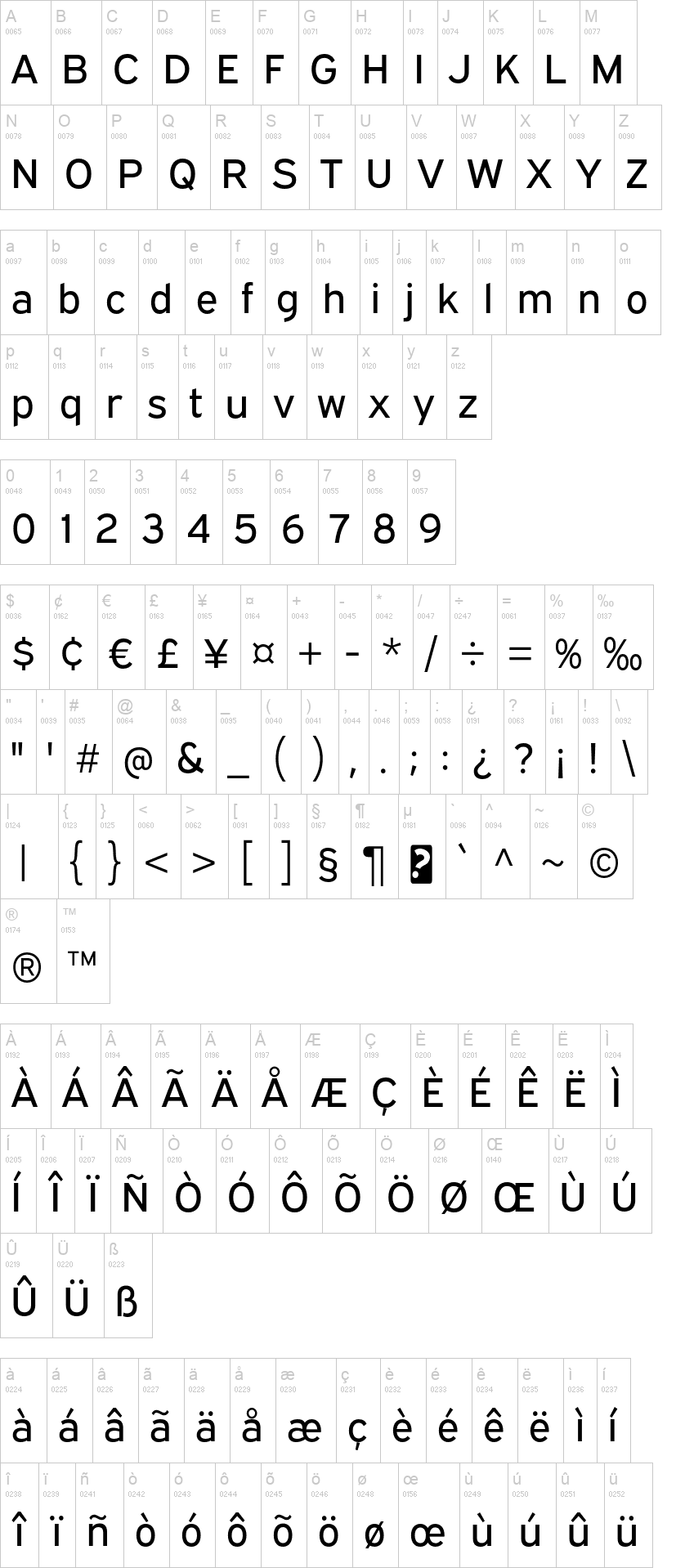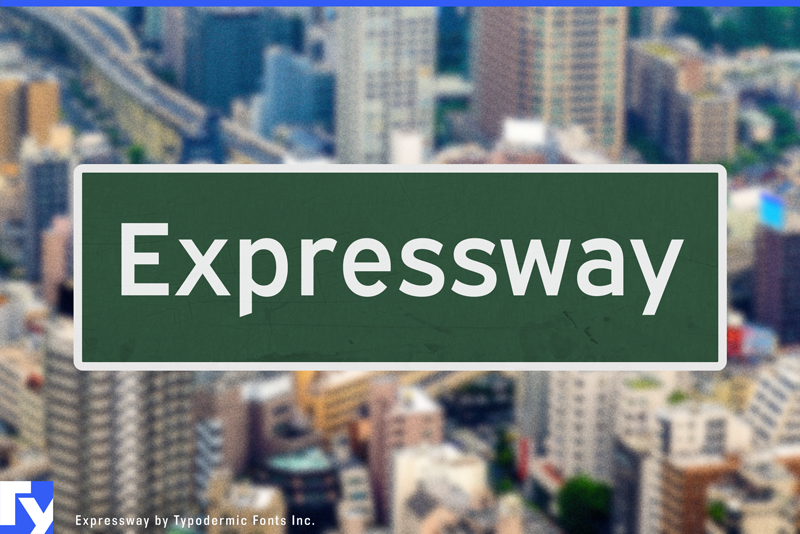
Note of the authorExpressway is a sans-serif typeface inspired by the U.S. Department of Transportations FHWA Series of Standard Alphabets, also known as Highway Gothic. It has been the most commonly used typeface on road signs in the United States, Canada, Mexico, Australia, Turkey, Spain, Venezuela, the Netherlands, Brazil, Argentina, Taiwan, Malaysia, Indonesia, India, Mongolia, and New Zealand since the mid-twentieth century. Instead of strictly adhering to government specifications, Expressway is a more practical design that preserves the original road sign feel. For a total of twenty-eight styles, the family includes seven weights, two widths, and italics. Lowercase (old-style) numerals as well as monospaced (tabular) numerals are easily accessible in OpenType-capable programs. Currency, mathematical, and fraction symbols are all monospaced, making it simple to create price lists and other tabular numeric data. The basic technical design of Expressway may be rooted in the past, but its warm, industrial style is eternal. Most Latin-based European, Vietnamese, Greek, and most Cyrillic-based writing systems are supported, including the following languages. Afaan Oromo, Afar, Afrikaans, Albanian, Alsatian, Aromanian, Aymara, Azerbaijani, Bashkir, Bashkir (Latin), Basque, Belarusian, Belarusian (Latin), Bemba, Bikol, Bosnian, Breton, Bulgarian, Buryat, Cape Verdean, Creole, Catalan, Cebuano, Chamorro, Chavacano, Chichewa, Crimean Tatar (Latin), Croatian, Czech, Danish, Dawan, Dholuo, Dungan, Dutch, English, Estonian, Faroese, Fijian, Filipino, Finnish, French, Frisian, Friulian, Gagauz (Latin), Galician, Ganda, Genoese, German, Gikuyu, Greenlandic, Guadeloupean Creole, Haitian Creole, Hawaiian, Hiligaynon, Hungarian, Icelandic, Igbo, Ilocano, Indonesian, Irish, Italian, Jamaican, Kaingang, Khalkha, Kalmyk, Kanuri, Kaqchikel, Karakalpak (Latin), Kashubian, Kazakh, Kikongo, Kinyarwanda, Kirundi, Komi-Permyak, Kurdish, Kurdish (Latin), Kyrgyz, Latvian, Lithuanian, Lombard, Low Saxon, Luxembourgish, Maasai, Macedonian, Makhuwa, Malay, Maltese, Māori, Moldovan, Montenegrin, Nahuatl, Ndebele, Neapolitan, Norwegian, Novial, Occitan, Ossetian (Latin), Papiamento, Piedmontese, Polish, Portuguese, Quechua, Rarotongan, Romanian, Romansh, Russian, Rusyn, Sami, Sango, Saramaccan, Sardinian, Scottish Gaelic, Serbian, Serbian (Latin), Shona, Sicilian, Silesian, Slovak, Slovenian, Somali, Sorbian, Sotho, Spanish, Swahili, Swazi, Swedish, Tagalog, Tahitian, Tajik, Tatar, Tetum, Tongan, Tshiluba, Tsonga, Tswana, Tumbuka, Turkish, Turkmen (Latin), Tuvaluan, Ukrainian, Uzbek, Uzbek (Latin), Venda, Venetian, Vepsian, Vietnamese, Võro, Walloon, Waray-Waray, Wayuu, Welsh, Wolof, Xavante, Xhosa, Yapese, Zapotec, Zarma, Zazaki, Zulu and Zuni.